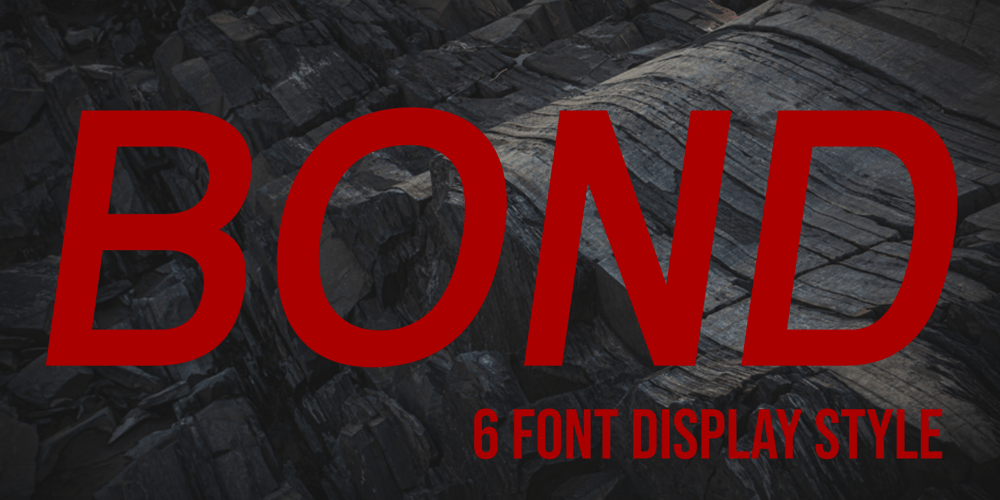
Bond
Bond font
Bond Font Family was designed by Arief Rochman and published by 4RM Font. Bond contains 6 styles and family package options. Its very simple form is the hallmark of this font, the bond font is a simple styled font but still has an aesthetic value, this font is suitable for use in simple themed designs.